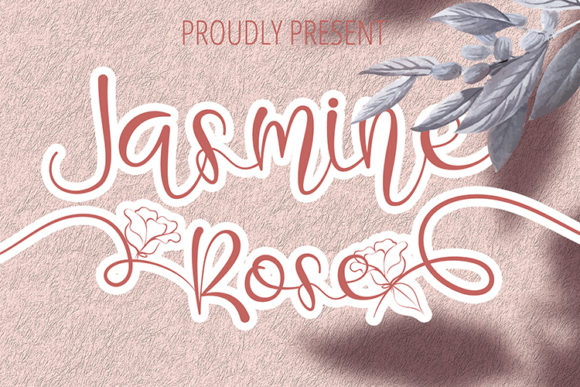
**Introducing Jasmine Rose Font: The Epitome of Elegance for Your Church Brand**
Step into a world of timeless beauty and sophistication with Jasmine Rose Font, the crown jewel of our script font collection. This enchanting font, lovingly crafted by Al Ghul, is a testament to the power of handwritten elegance in the digital age.
As you traverse its graceful curves and delicate flourishes, you'll discover a font that captures the essence of tradition while embracing a modern sensibility. Its inherent charm and versatility make it an ideal choice for church brands seeking to establish a distinctive and memorable presence.
**Why Choose Jasmine Rose Font for Your Church Brand?**
* **Unveil a Legacy of Faith and Inspiration:** Jasmine Rose Font embodies the sacred spirit of your church, evoking a sense of reverence and connection. Its elegant strokes whisper tales of faith, hope, and love, leaving an enduring impression on your congregation.
* **Craft a Distinctive Signature:** Elevate your church's identity with a font that sets you apart from the ordinary. Jasmine Rose Font's unique character will weave a tapestry of visual interest, ensuring that your church's message resonates deeply with your audience.
* **Embrace the Timeless Appeal of Tradition:** Steeped in the rich history of calligraphy, Jasmine Rose Font pays homage to the enduring power of handwritten communication. It seamlessly blends the timeless elegance of the past with the modern conveniences of today, creating a truly captivating experience.
* **Ignite Emotional Connections:** Every stroke of Jasmine Rose Font is infused with the power to stir emotions and create lasting impressions. Its graceful lines and subtle nuances will evoke a sense of warmth and belonging, fostering a deeper connection between your church and its community.
* **Unlock Endless Creative Possibilities:** Unleash your creativity with Jasmine Rose Font's versatility. Its adaptability extends to a wide range of applications, from sermon notes and bulletins to website designs and social media campaigns. Let your imagination soar as you weave this exquisite font into every aspect of your church's visual identity.
**Experience the Transformative Power of Jasmine Rose Font:**
Imagine the transformative impact of Jasmine Rose Font on your church brand. Imagine a world where every word, every message, and every visual expression exudes an air of grace and sophistication. Imagine a font that becomes an integral part of your church's DNA, leaving an unforgettable mark on the hearts and minds of your congregation.